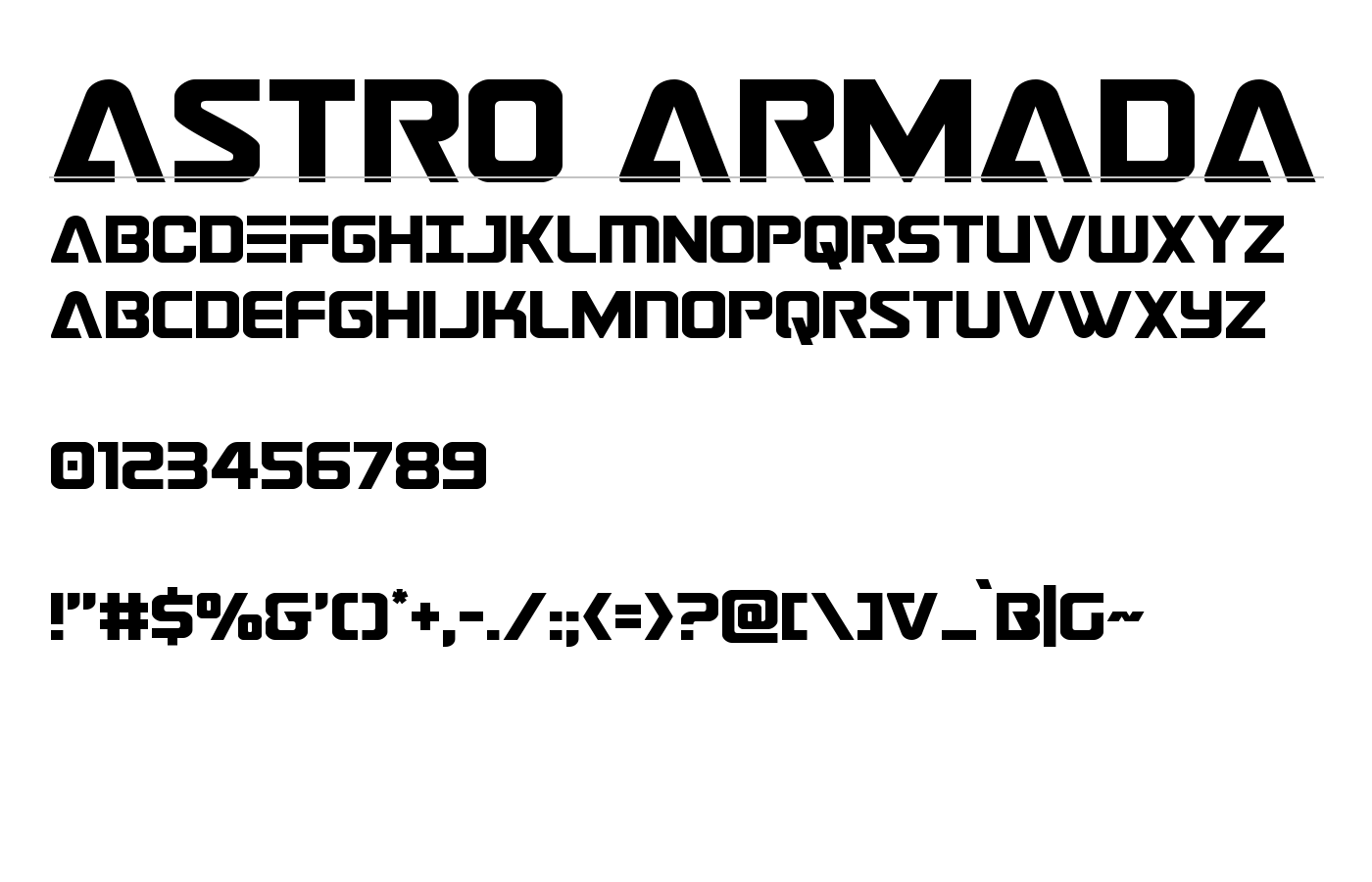
Astro Armada is a bold, futuristic sans serif font with a strong geometric structure and wide stance. Its sharp angles and unique cutouts give it a space-age, tech-inspired personality, making it ideal for sci-fi branding, headlines, and modern digital projects that seek a striking, adventurous look. This font’s sturdy forms and distinctive details make it perfect for attention-grabbing logos and displays where a dynamic, innovative style is desired.
Astro Armada Font
About Astro Armada Font